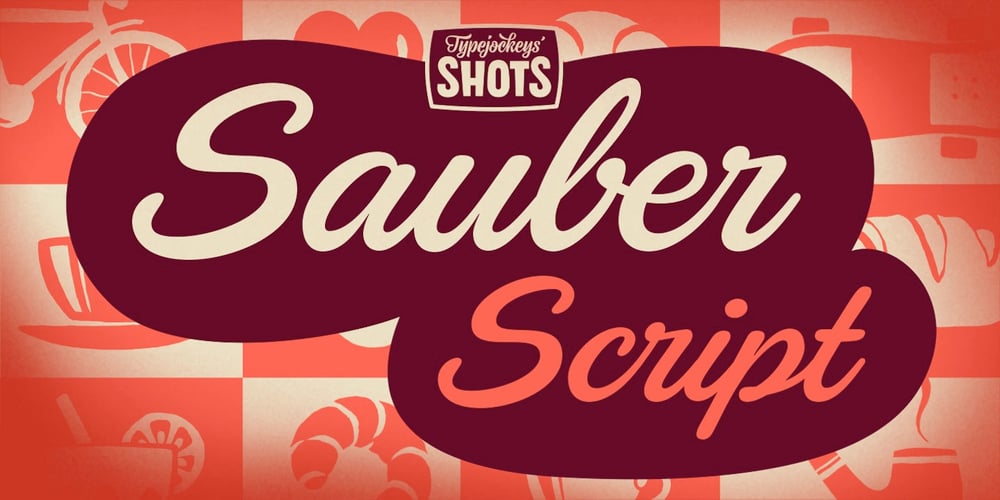
Sauber Script Font Family was designed by Michael Hochleitner and published by Typejockeys. Sauber Script contains 1 styles and family package options. After its period of exclusivity expired, the corporate typeface of the Saubermacher recycling company was revised and expanded. Now it is available for everyone! Whether on fresh buttermilk, a Honolulu surfer bar, or a hotel on the Arlberg, this preppy script face is versatile and full of character.